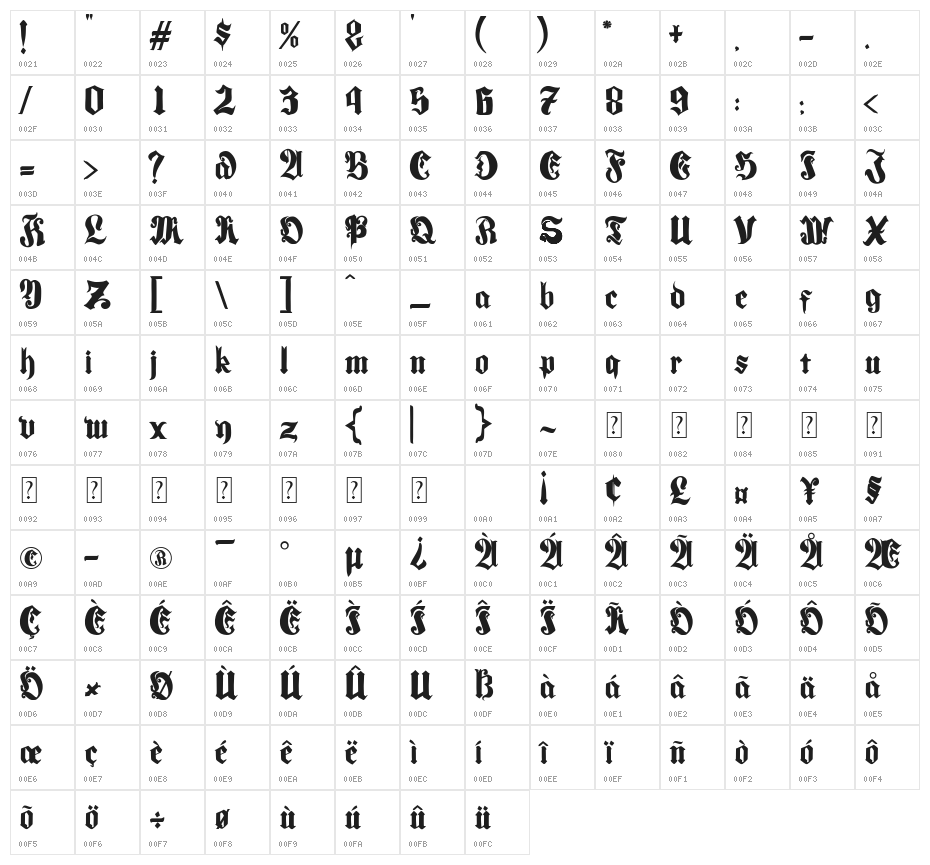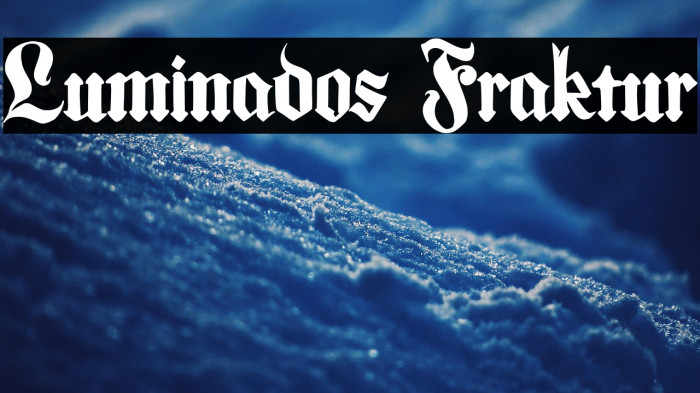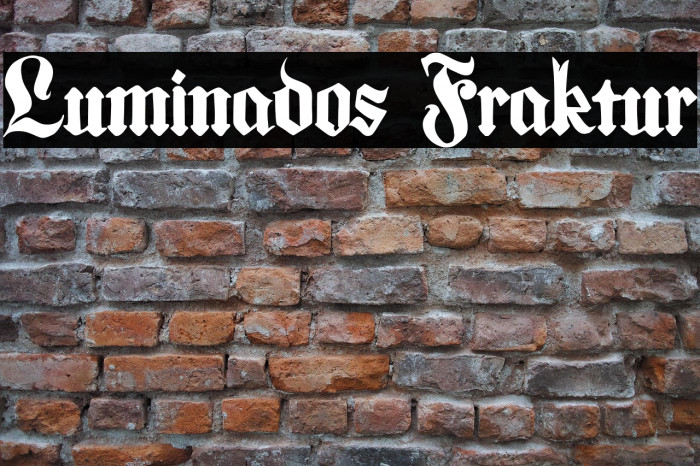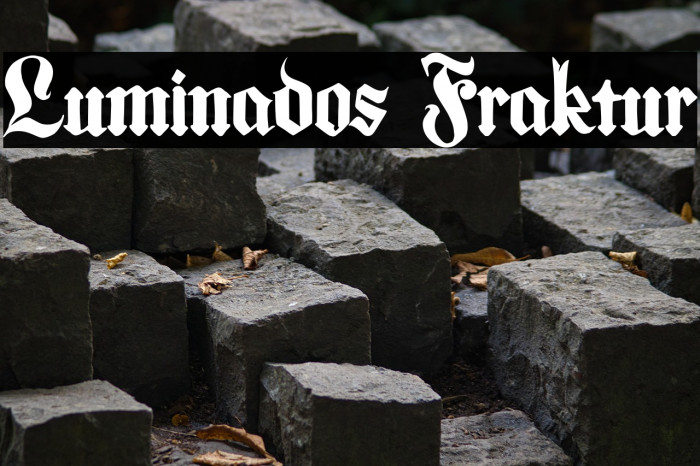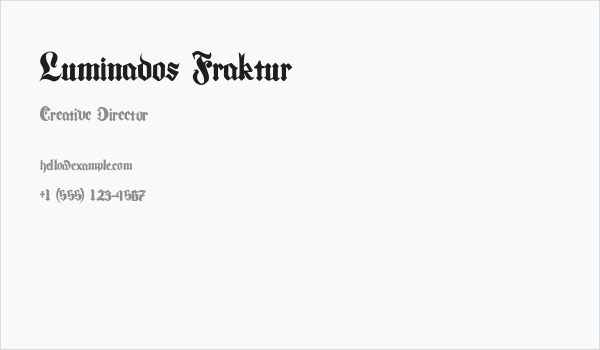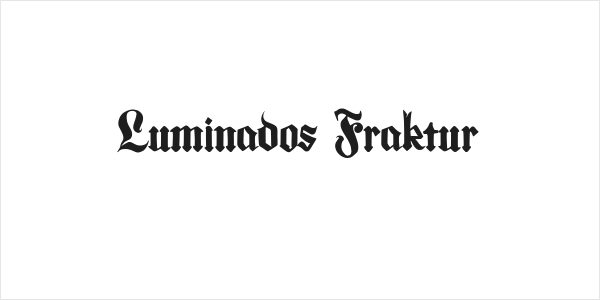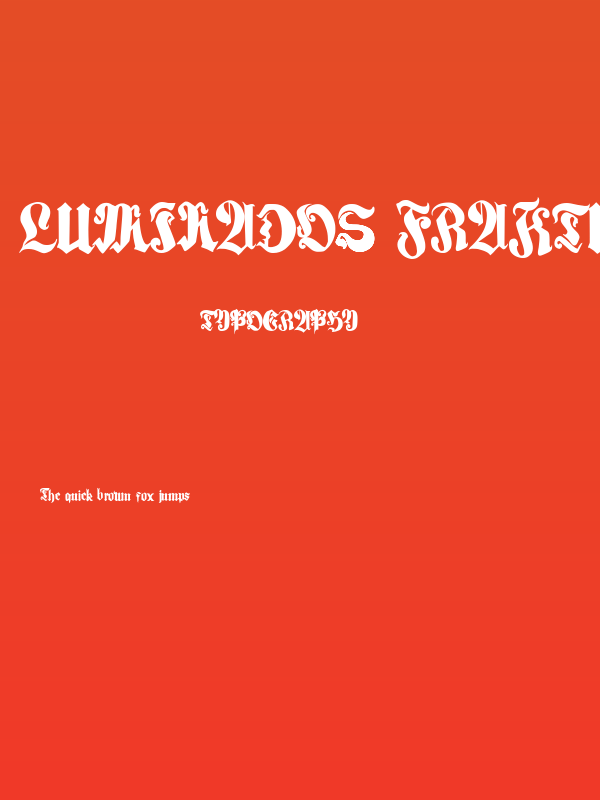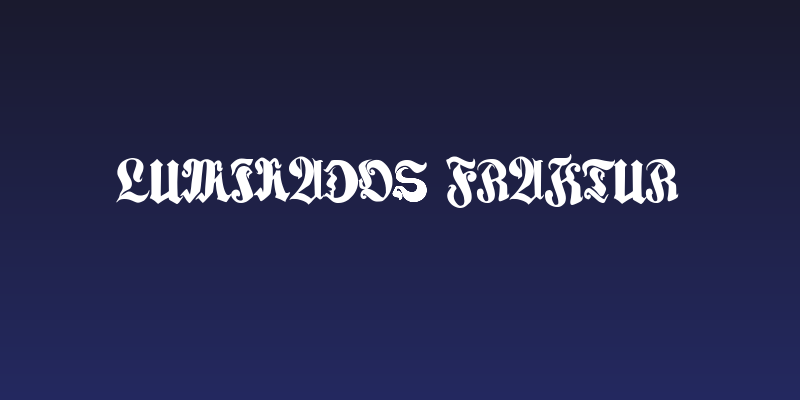
Luminados Fraktur Font
Luminados Fraktur Description
This font is a striking example of Blackletter style, characterized by its intricate and ornate letterforms. The uppercase letters feature dramatic flourishes and sharp angles, creating a sense of historical elegance and authority. The lowercase letters maintain the same intricate design, with a consistent flow that complements the uppercase. Numbers and special characters are equally bold and decorative, adding to the overall cohesive look. This font is perfect for projects that require a touch of medieval or gothic flair, providing a sense of tradition and formality.
| Proposed Projects | Ideal for historical documents, gothic-themed designs, book covers, and event invitations. |